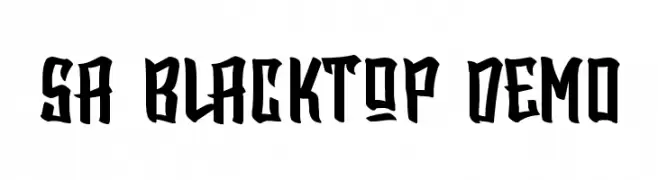
( Fonts by Set Sail Studios )
A bold, graffiti-inspired font with sharp, angular lines and a rebellious style.
A bold, edgy font with sharp angles and high contrast.
( APG Studios - Anna Gustafson - www.apgstudios.com )
A playful, circle-based decorative font with a whimsical and artistic style.
( APG Studios - Anna Gustafson - www.apgstudios.com )
A bold, playful font with a stamped effect and irregular outlines.
( APG Studios - Anna Gustafson - www.apgstudios.com )
A textured, italicized font with a vintage, distressed style.
( Alexander Kaiser - pooliestudios.com )
A sketch-like, hand-drawn font with a dynamic, textured appearance.